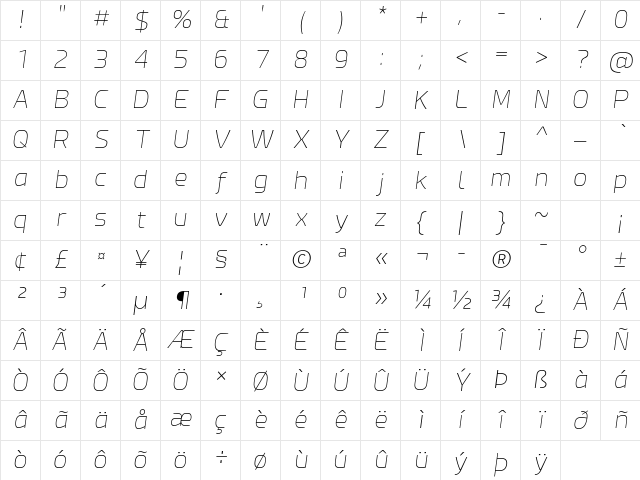
Esphimere Thin Italic Free Font
Esphimere Thin Italic
Designer: Dichi
Design Context for Esphimere Thin
Esphimere Thin is a composed and adaptable typeface that performs quietly and consistently across a wide range of design contexts. The slanted form adds forward momentum and visual energy. Its slender proportions lend an understated elegance to any composition.
Pro Tip: Use Esphimere Thin for emphasis, pull quotes, and subheadings where its slanted energy can add rhythm to the layout.